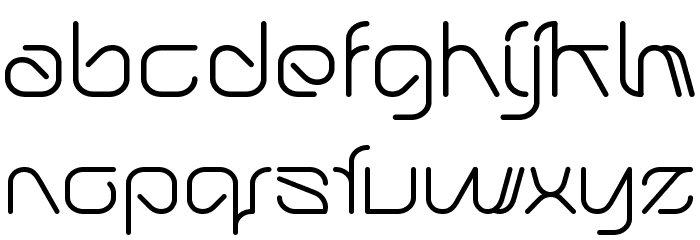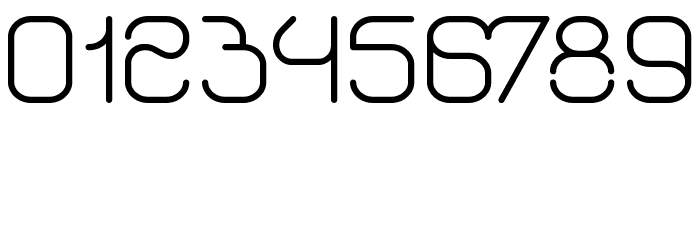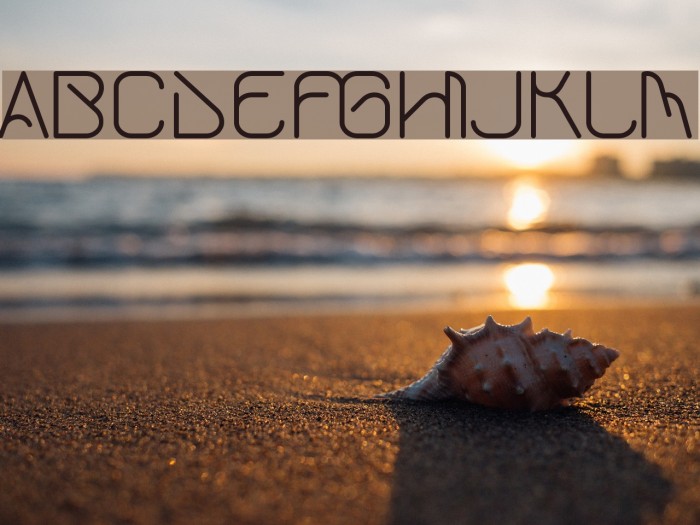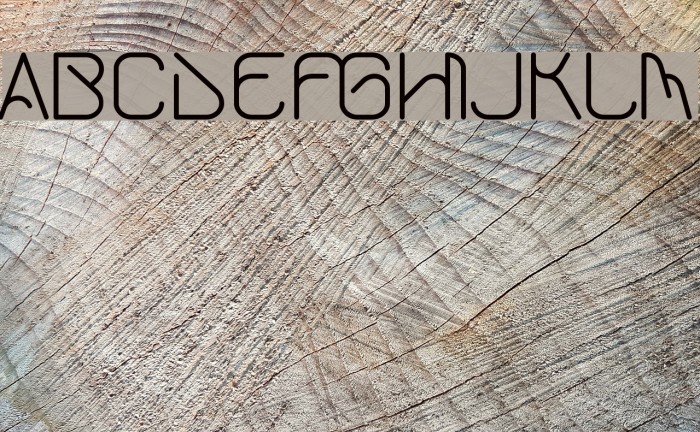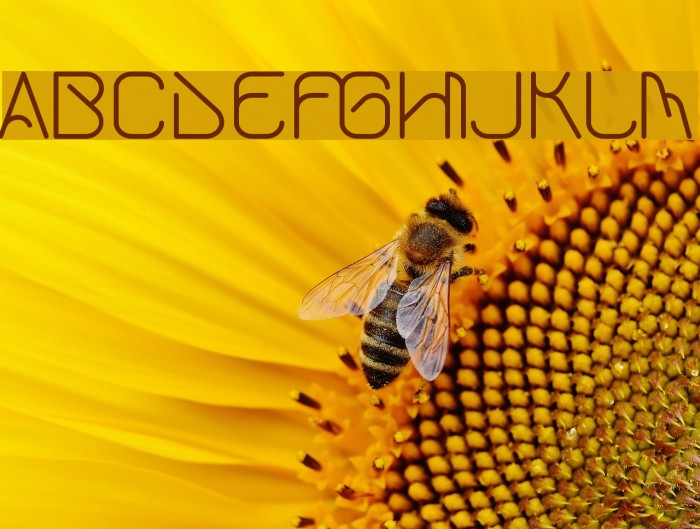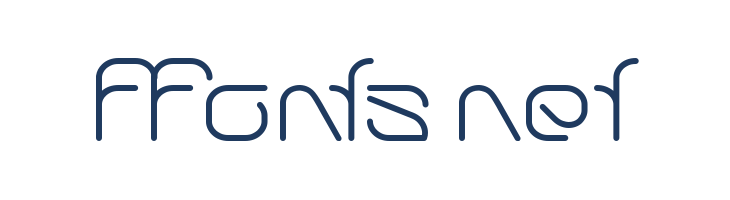
Schlangen schriftas Font
This font features a unique, futuristic design with a geometric and minimalist aesthetic. The characters are composed of clean, continuous lines that form rounded edges, giving it a sleek and modern appearance. The uppercase and lowercase letters maintain a consistent style, with a focus on symmetry and balance. The numerals follow the same design principles, ensuring uniformity across the font. The special characters are crafted to match the overall theme, making this font ideal for projects that require a contemporary and innovative look.
A futuristic, geometric font with clean lines and rounded edges.
- Proposed Projects: Ideal for technology branding, modern advertising, sci-fi themed projects, and digital interfaces.
- Overall Style: Futuristic
- Use Case: Logos, Headlines, Digital interfaces